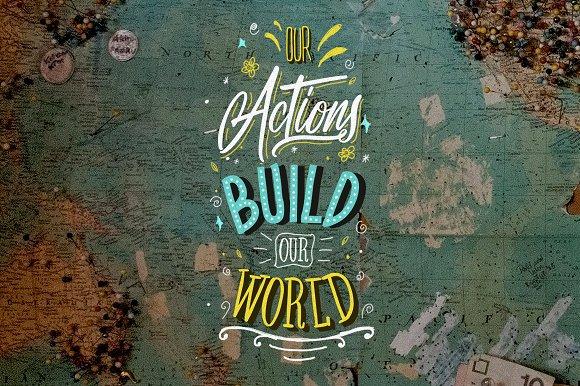
Thinks Opentype Font Description
Thinks type is an experimental and versatile font, using high resolution brush stroke images with incredible definition, instead of the traditional vector format. Take your designs to the next level with a hyper realistic font that truly looks gorgeous and is sure to grab the attention of customers and designers alike.